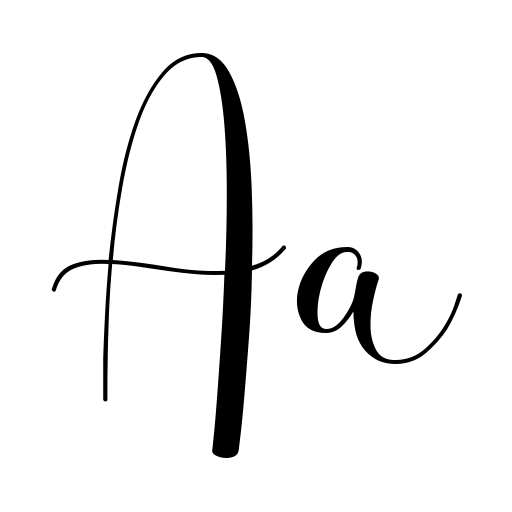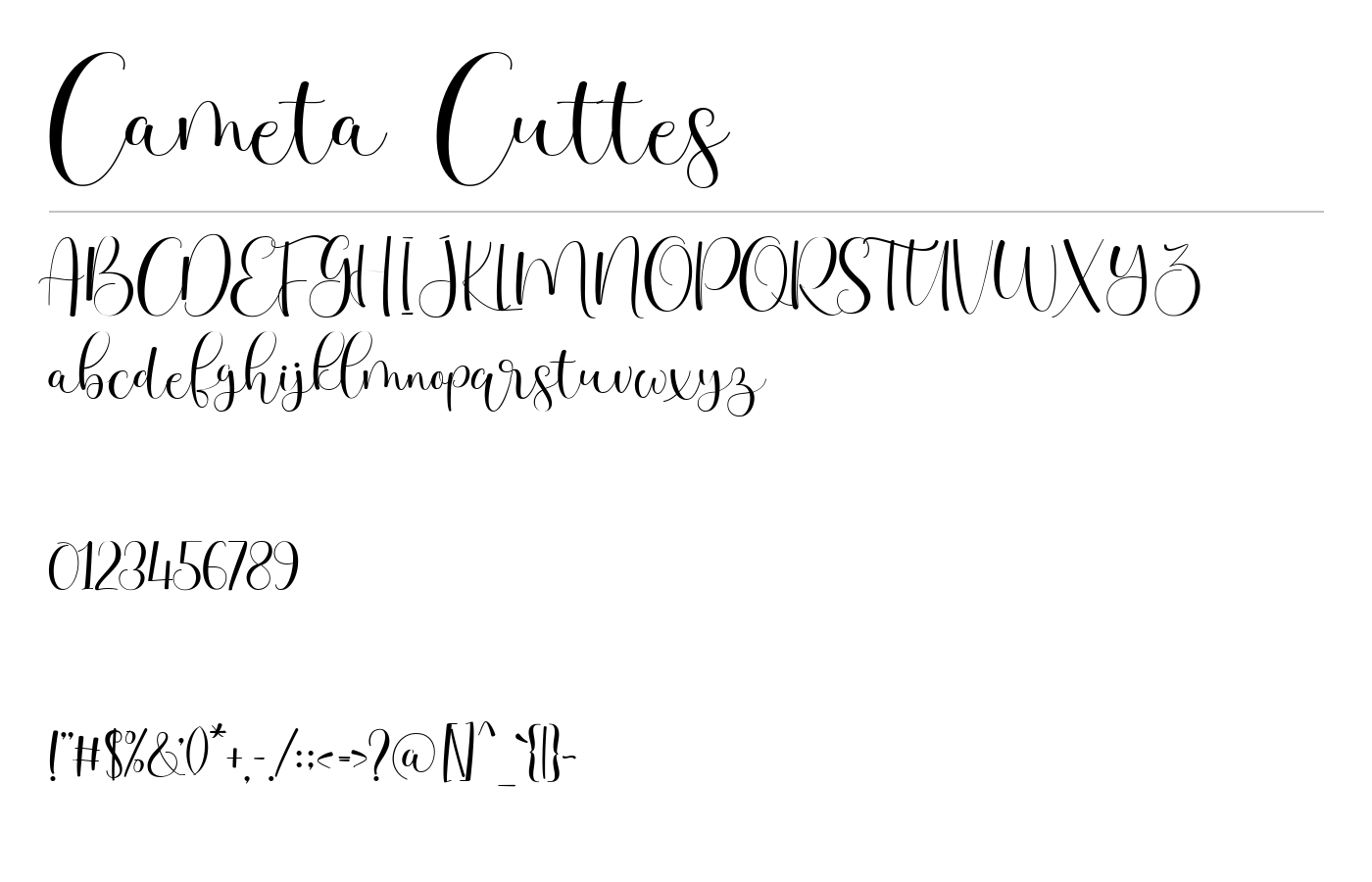
Cameta Cuttes is a delicate script font with tall, slender letterforms and fine stroke contrast that gives it an elegant, whimsical feel. Its flowing, hand-drawn style with graceful curves is perfect for adding a touch of sophistication and charm to invitations, branding, and feminine design projects. This font works well in decorative headlines and logos where a refined, artistic statement is desired.
Cameta Cuttes Font
About Cameta Cuttes Font